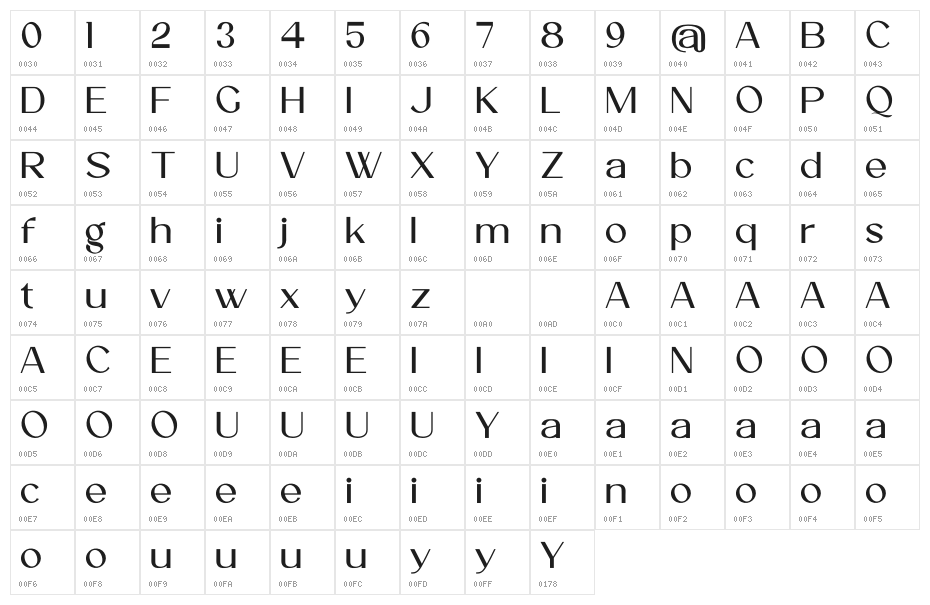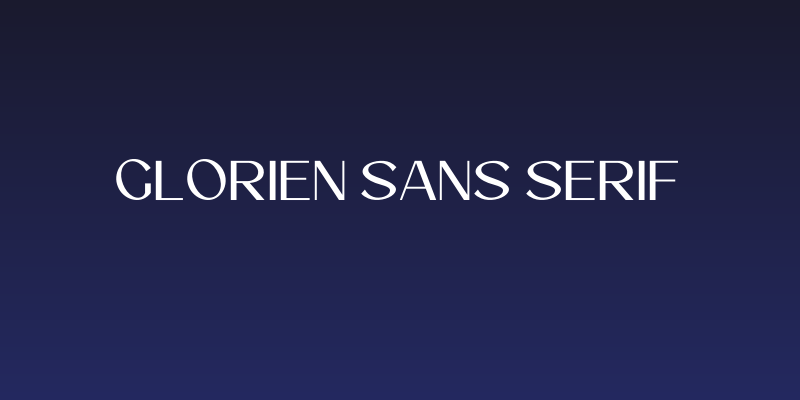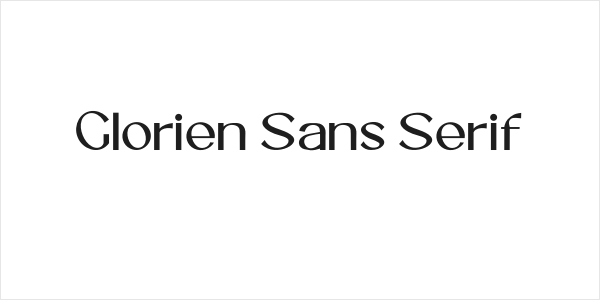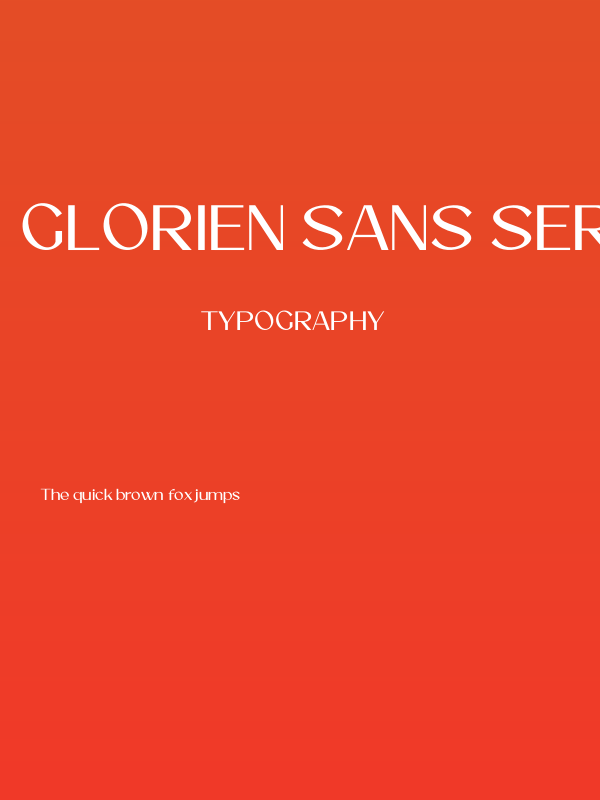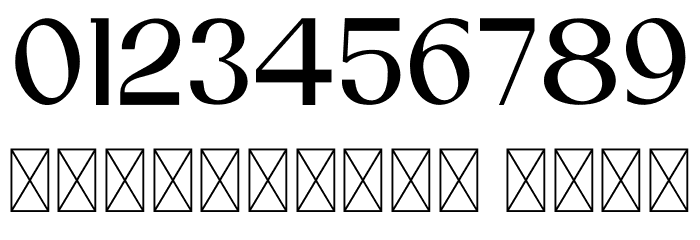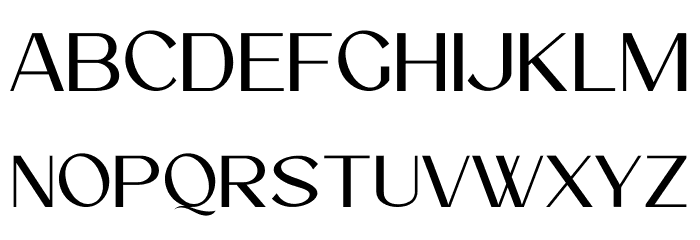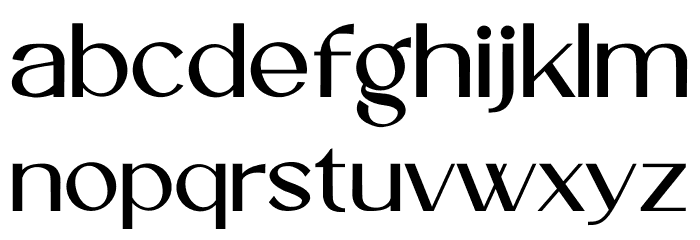
Glorien Sans Serif Font
Glorien Sans Serif Description
A modern sans-serif font with clean lines and geometric shapes, suitable for contemporary design projects.
| Proposed Projects | Branding, web design, advertising. |